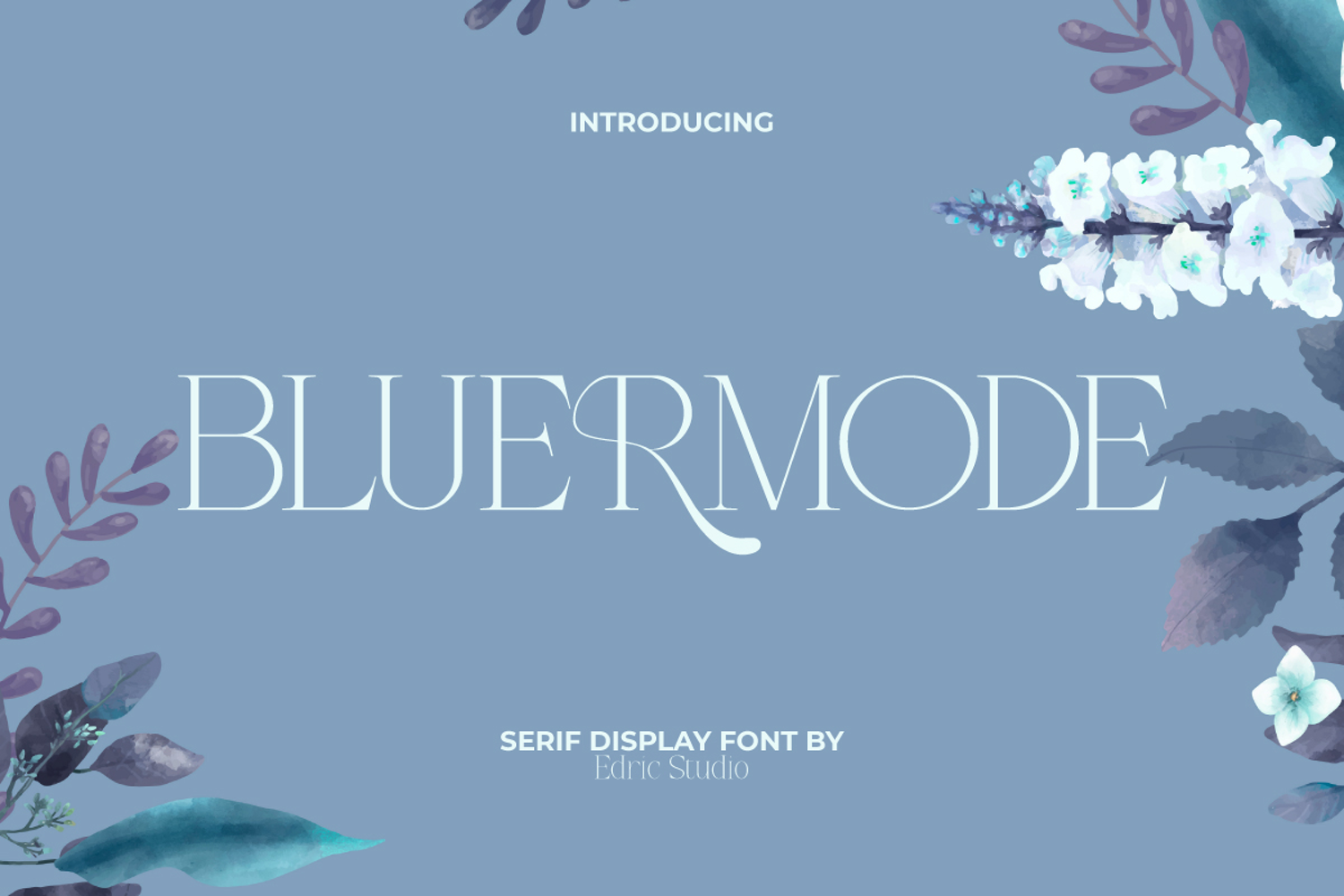
Bluermode Font
Bluermode Modern Font a minimalist serif display typeface designed to elevate every detail of your work. This elegant and charming font blends contemporary refinement with a nostalgic touch, making it the perfect choice for designers who want to create a polished and professional look.
Bluermode Modern Display Font covers the basic characters of Uppercase and Lowercase Letters, Numbers, Punctuation and Symbols. This typeface combines the sophistication of contemporary design with a feminine aesthetic, making it ideal for a variety of creative projects. It’s perfect for apparel, beauty clinic, content creator, cosmetic, event/celebration, fashion, florist, makeup artist, pastry chef, skincare, spa salon, etc.
Bluermode Font a playful typeface with unique decoration in each character. Combine different characters for a bespoke, handcrafted feel. It’s tested to work well in the Adobe Apps (Illustrator, Adobe InDesign, Adobe Photoshop) even work on Microsoft Word. Thanks to PUA encoding, every glyph and alternate character is accessible for custom creative control.